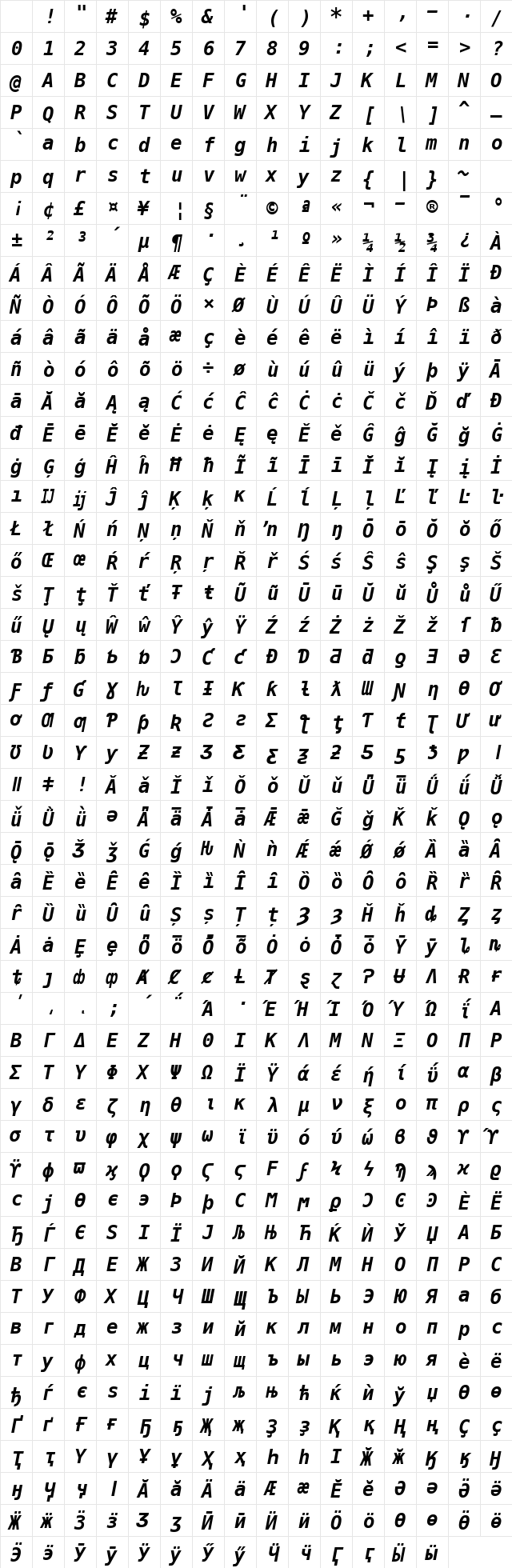
Complete MesloLGLDZ NF Bold Italic glyph index. Displaying only characters natively supported by MesloLGLDZ NF Bold Italic font.
MesloLGLDZ NF is a composed and adaptable typeface that performs quietly and consistently across a wide range of design contexts. The slanted form adds forward momentum and visual energy. Its bold stroke weight gives it real presence on the page.
Pro Tip: Use MesloLGLDZ NF for emphasis, pull quotes, and subheadings where its slanted energy can add rhythm to the layout.